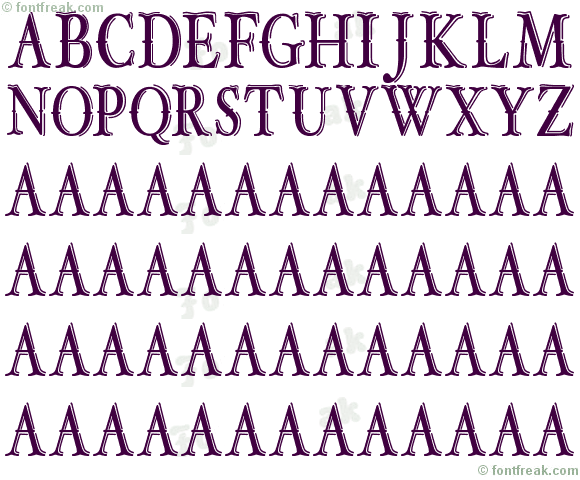
OLD BOB DEMO JUNIOR
OLD BOB DEMO JUNIOR is a captivating display typeface that combines a vintage aesthetic with a playful flair. This font, designed by Fonts and Fashion in 2014, showcases a unique blend of old-world charm and modern usability. Its decorative serif style features pronounced stroke weights and a distinct contrast that adds depth and character to each letter. The spacing is thoughtfully crafted, allowing for legibility while maintaining an artistic touch.
This font is perfect for a variety of creative projects. It shines in wedding invitations, where its whimsical elements can evoke a sense of nostalgia and romance. Additionally, OLD BOB DEMO JUNIOR is an excellent choice for movie posters, particularly for period pieces or films with a quirky vibe, as it draws attention and creates an inviting atmosphere. Restaurant menus can also benefit from this typeface, particularly in establishments that emphasize a vintage or eclectic theme, enhancing the dining experience with its unique visual appeal. Furthermore, content creators looking to add a distinctive touch to their online presence will find this font to be a delightful option for blog headers or social media graphics.
What sets OLD BOB DEMO JUNIOR apart is its harmonious blend of elegance and playfulness, making it a standout choice for those looking to infuse their work with personality. For anyone interested in exploring this charming typeface, the OLD BOB DEMO JUNIOR font free download offers an accessible opportunity to elevate design projects with a touch of vintage flair.